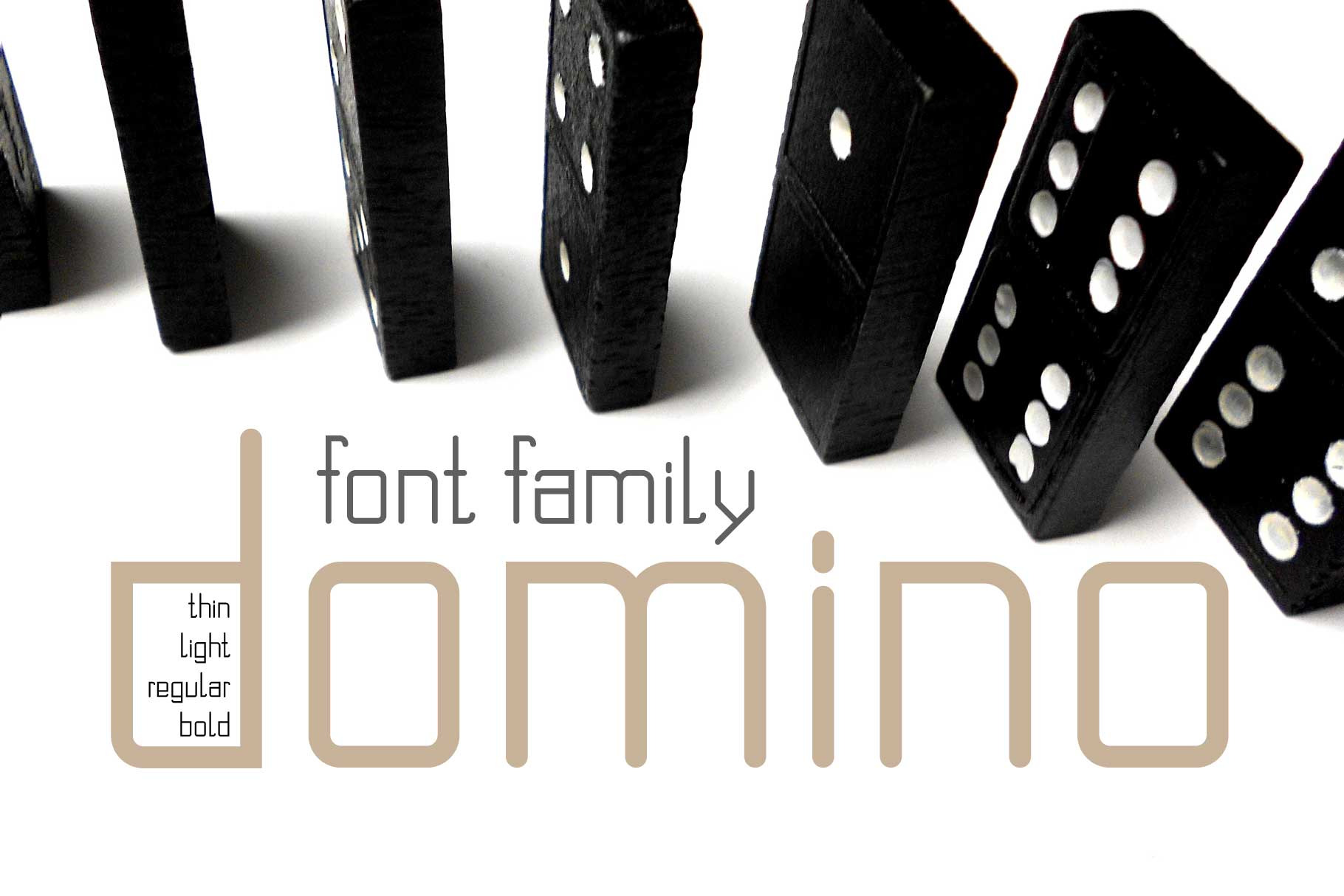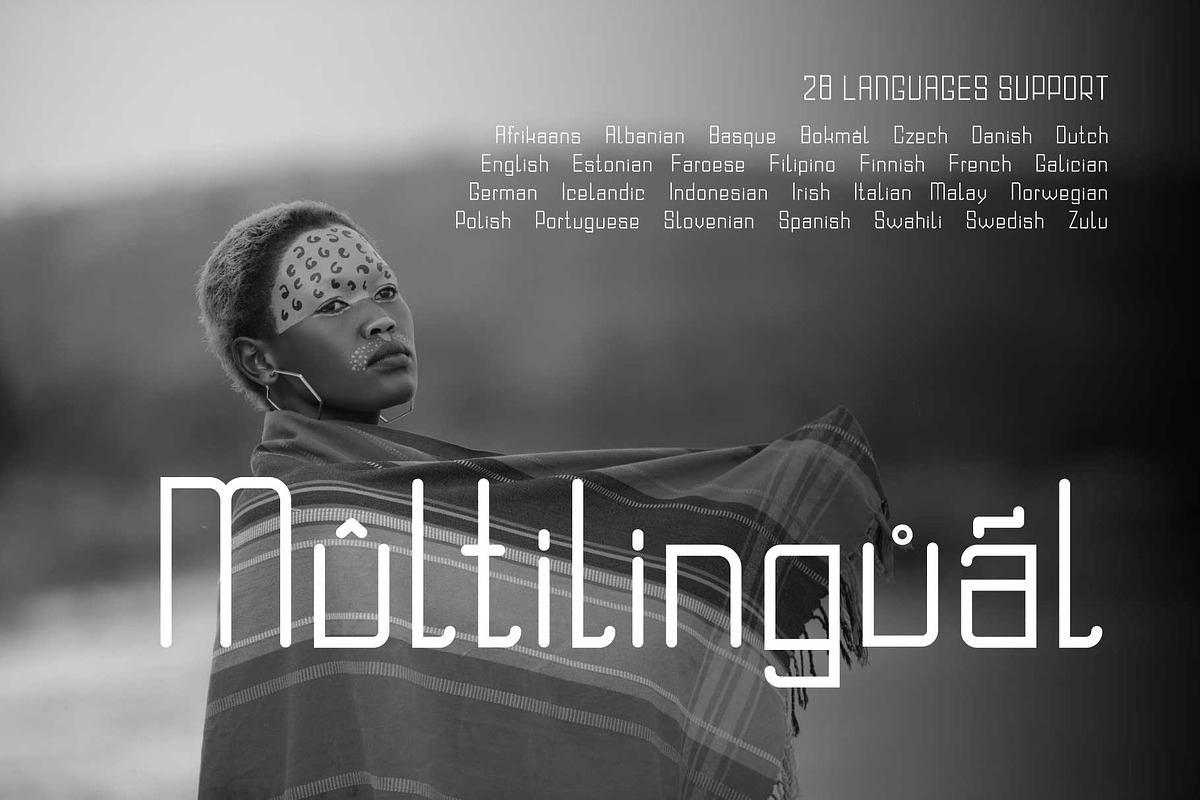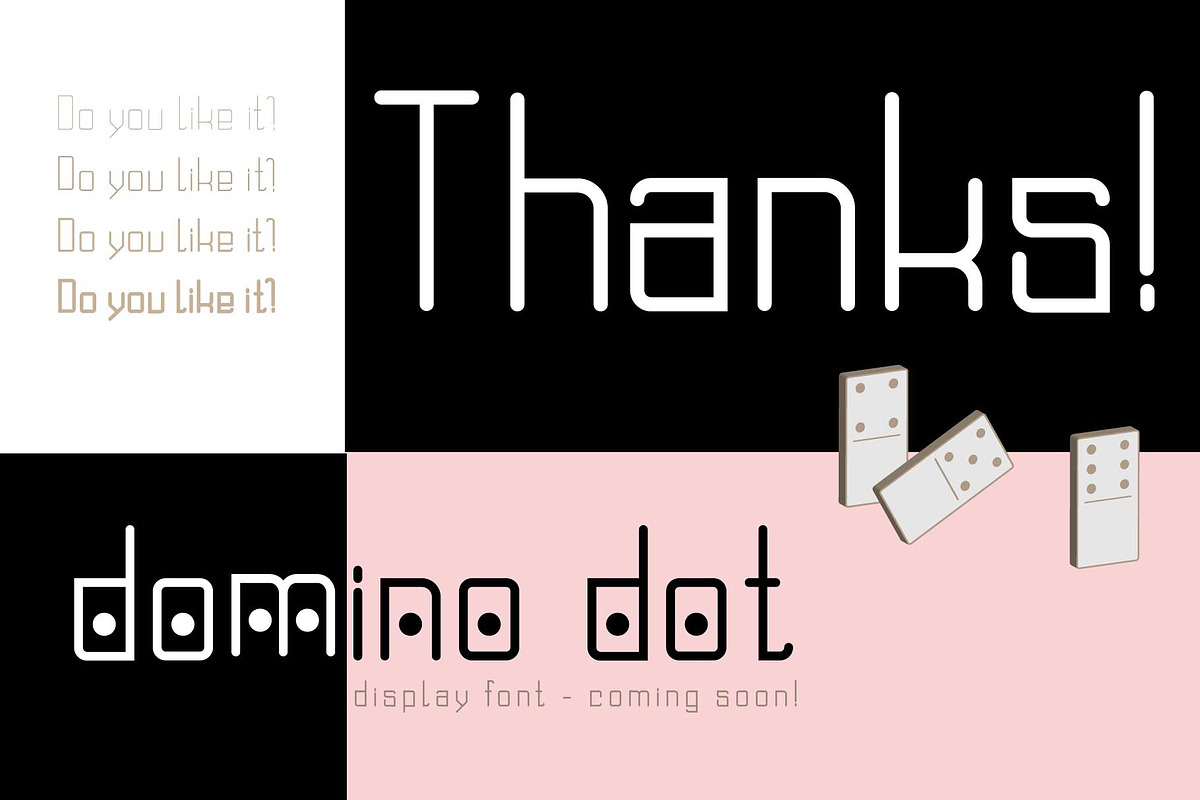
Domino font family
Domino monospace san serif font family It is It’s great for quotes, logos, invitations, magazines, web, signage, and advertising. With four weights (thin, light, regular and bold). It's easy to use in multiple contexts and versatile enough to suit all your design needs.
• Domino thin
• Domino light
• Domino regular
• Domino bold